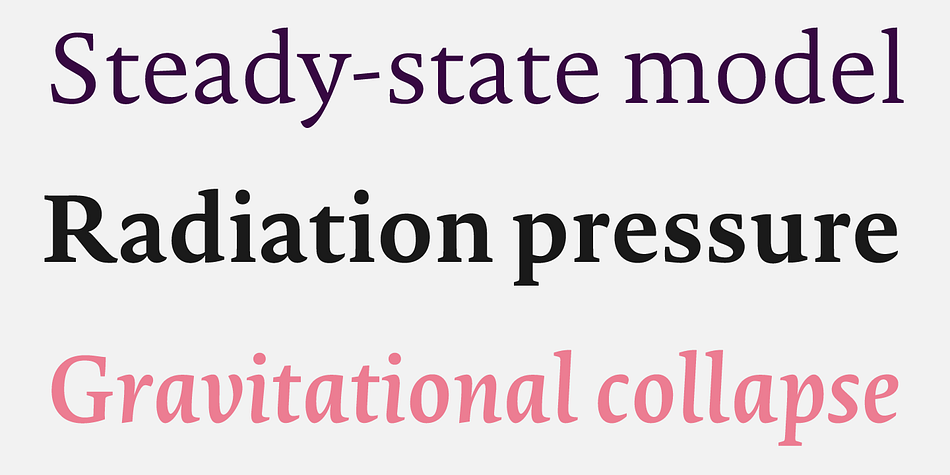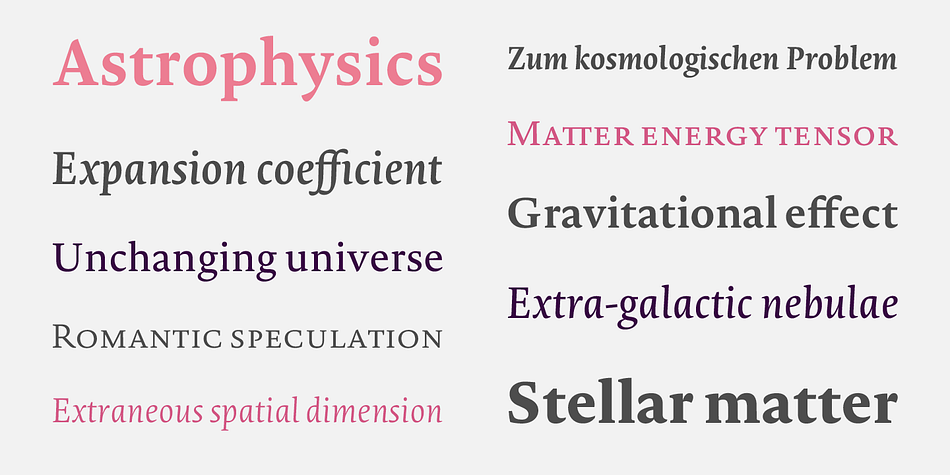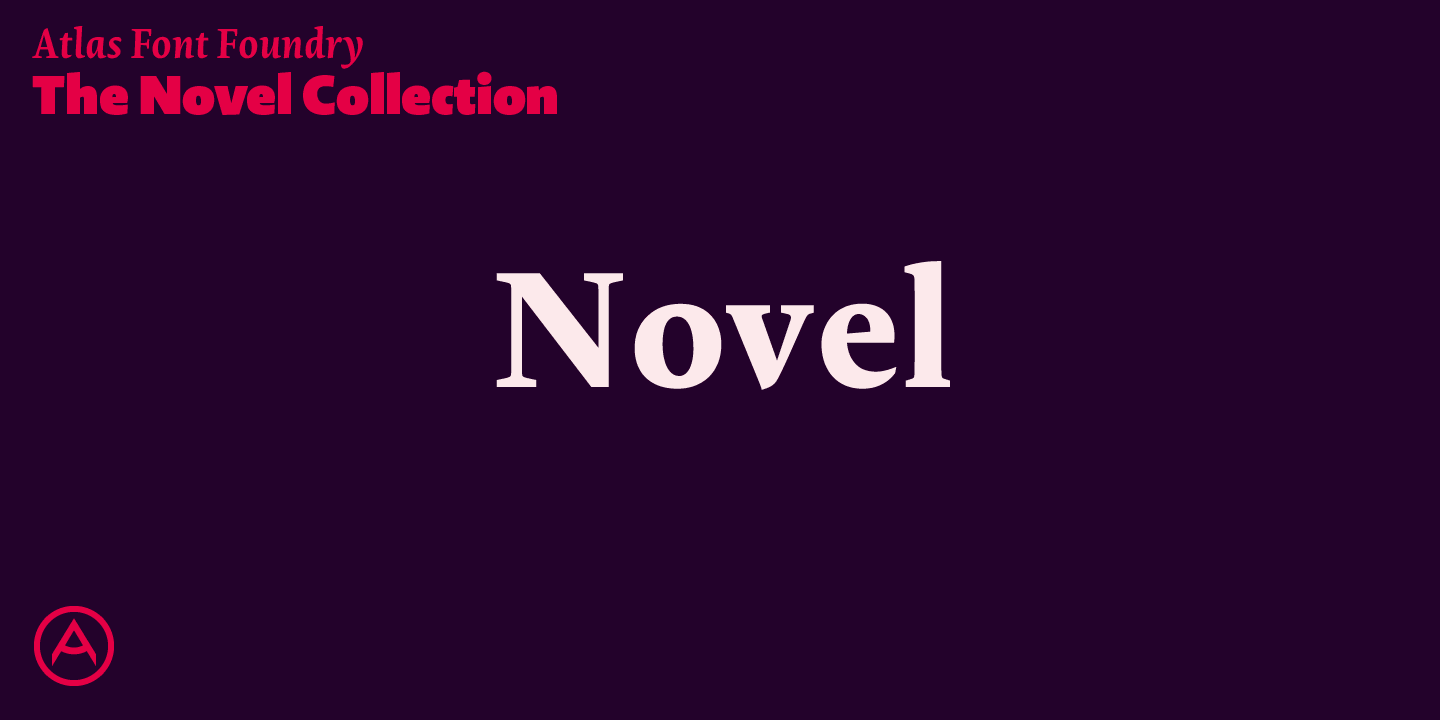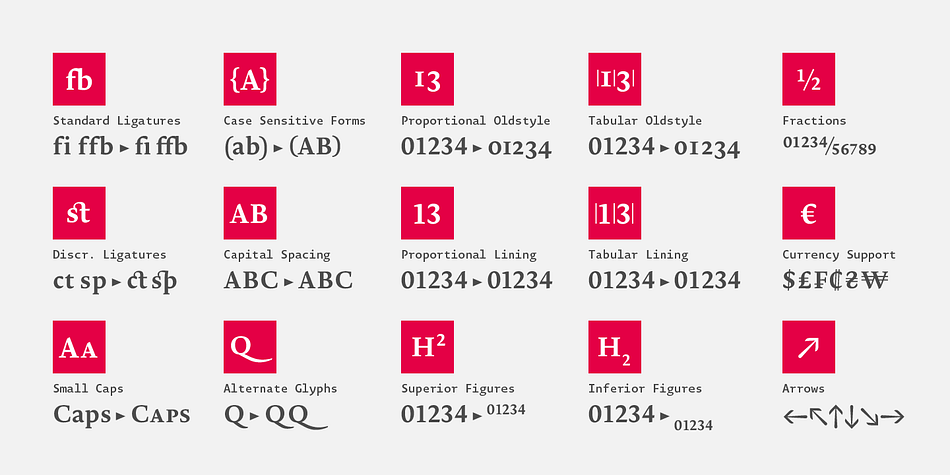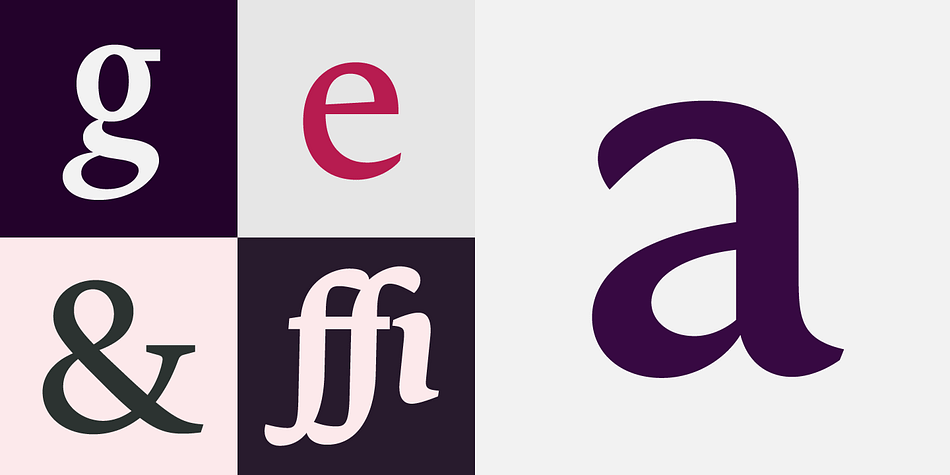
Designed by Christoph Dunst, Novel Pro is a serif font family. This typeface has twelve styles and was published by Atlas Font Foundry.
Novel is the humanist Antiqua typeface family within the largely extended award winning Novel Collection, also containing Novel Sans, Novel Sans Hair, Novel Sans Condensed, Novel Display, Novel Display Condensed, Novel Display Extra Condensed, Novel Display Compressed, Novel Display Extra Compressed, Novel Mono, Novel Sans Rounded and Novel Sans Office.
Classic proportions of a Renaissance Antiqua combined with modern details let Novel appear as a friendly and elegant but functional typeface. The almost upright letters of the narrow Italics create a vital contrast to the generous construction of the roman.
All typeface families of the Novel Collection have a carefully attuned character design and a well balanced weight contrast. The fine gradation of 6 weights enable designers to create fine legible typography and combine the design with other members of the Novel Collection to reach highest quality in typography.
Novel [914 glyphs] comes in 12 styles and contains small caps, an extra set of alternate glyphs, many ligatures, lining figures [proportionally spaced and monospaced], hanging figures [proportionally spaced and monospaced], small caps figures [proportionally spaced and monospaced], positive and negative circled figures for upper and lower case, superior and inferior figures, fractions, extensive language support, arrows for uppercase and lowercase and many more OpenType™ features.